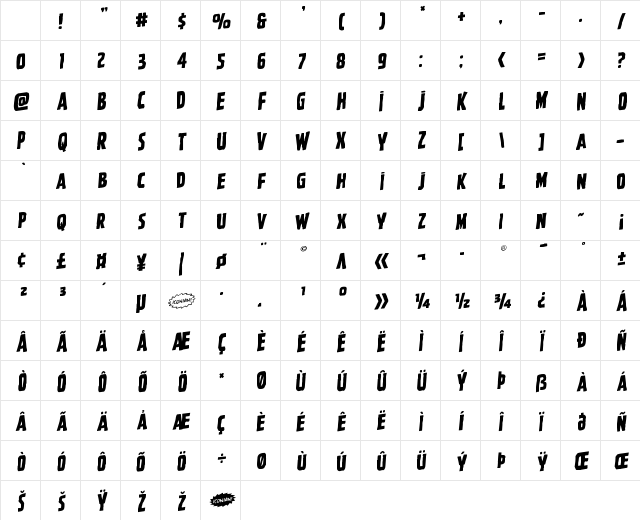
Complete Ghoulish Intent Rotalic Italic glyph index. Displaying only characters natively supported by Ghoulish Intent Rotalic Italic font.
Ghoulish Intent Rotalic is a composed and adaptable typeface that performs quietly and consistently across a wide range of design contexts. The slanted form adds forward momentum and visual energy.